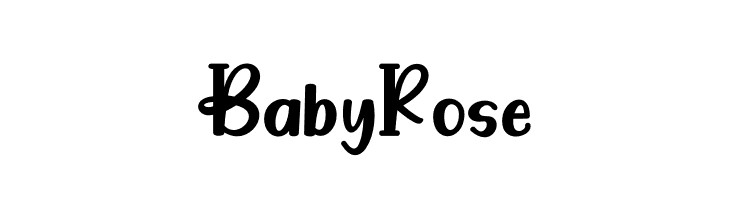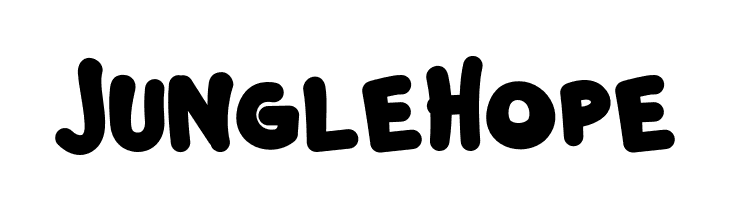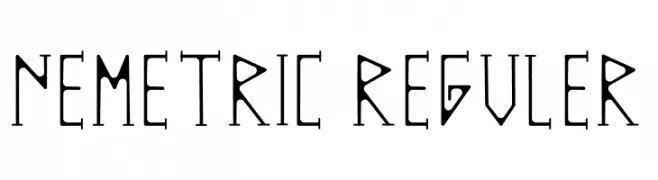
A bold, angular font with a geometric and modern aesthetic.
A bold, cursive font with a playful and energetic style.
A bold, condensed font with strong verticality and uniform weight.
A whimsical, handwritten font with elongated, flowing characters.
A bold, expressive handwritten font with flowing strokes and a playful style.
A playful handwritten font with thin, flowing lines and a casual style.
A playful and casual handwritten font with fluid strokes and a friendly appearance.
A bold, handwritten-style font with dynamic, expressive strokes.
A casual, cursive script font with a natural handwritten style.
A playful, casual handwritten font with smooth, flowing lines.